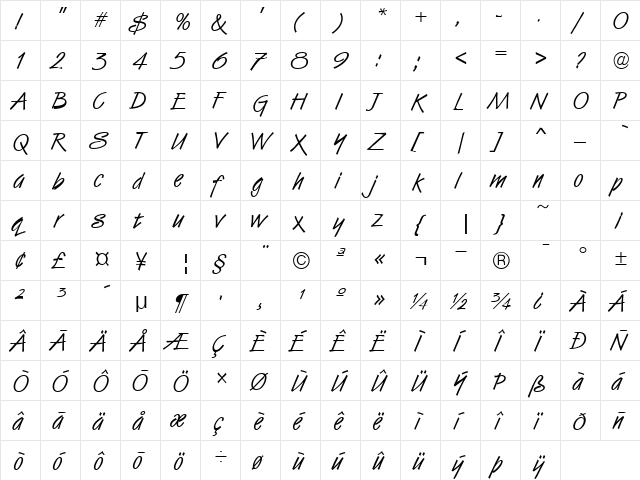
PT Hand Label Normal
Design Context for PT Hand Label Typeface
PT Hand Label flows with the natural rhythm of handwritten lettering, making it ideal for designs that call for warmth and personal expression.
Font Pairing: Combine PT Hand Label with a simple geometric sans for maximum contrast — the tension between flowing curves and clean structure is a classic typographic pairing.
Pro Tip: Pair PT Hand Label with a clean sans-serif for supporting text. The contrast between fluid script and geometric structure creates an elegant typographic hierarchy.